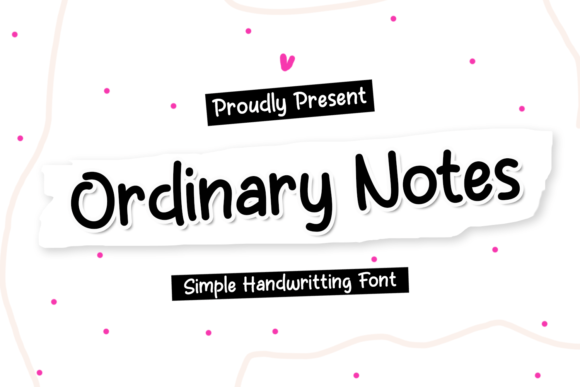
Dive into the realm of Ordinary Notes Font, a script font family meticulously crafted to redefine your content creation experience. Inspired by the beauty of handwritten notes, Ordinary Notes embodies the essence of simplicity, minimalism, and modernity. Each letter, number, and symbol is meticulously designed to exude elegance and charm, transforming your words into visually captivating masterpieces.
Step into a world of endless creative possibilities. With its comprehensive character set, Ordinary Notes provides you with a vast array of options to express yourself fully. From full alphabet and numbers to alternates, special characters, and ligatures, this font family ensures that your designs are not just ordinary, but extraordinary.
Immerse yourself in the versatility of Ordinary Notes. Whether you're crafting handwritten notes, creating heartfelt greeting cards, or designing captivating quotes, this font family is your perfect companion. It seamlessly adapts to suit your diverse design needs, ranging from branding and urban design to modern advertising and beyond.
With Ordinary Notes, you'll discover a font that speaks to your soul. Its graceful strokes and delicate curves evoke a sense of warmth and authenticity, drawing your audience into your creations. Unleash your imagination and let Ordinary Notes elevate your designs to new heights, captivating hearts and leaving a lasting impression.
Don't settle for ordinary. Embrace the beauty of Ordinary Notes Font and unlock a world of creative possibilities. Let your words dance with elegance, your designs shine with originality, and your creativity soar to new horizons. Experience the transformative power of Ordinary Notes and redefine your content writing journey. Immerse yourself in its timeless charm and let your creations speak volumes.